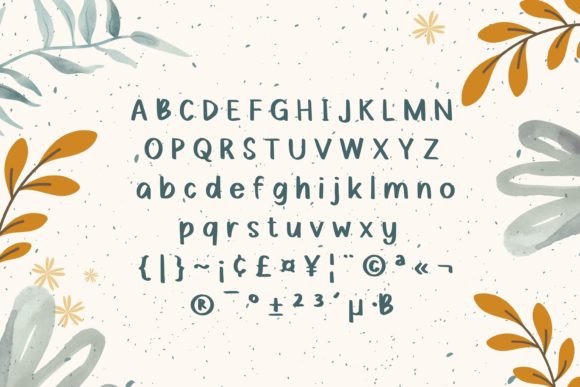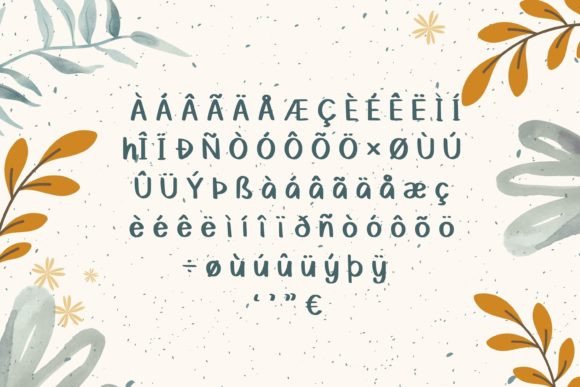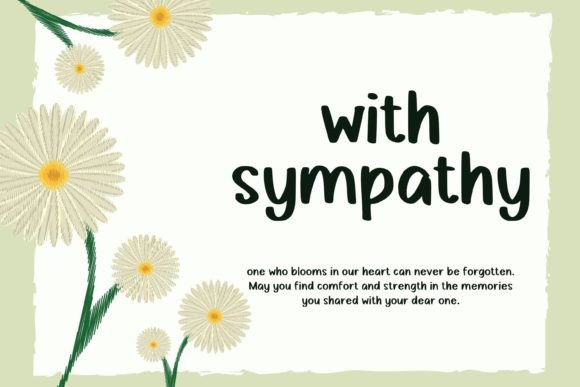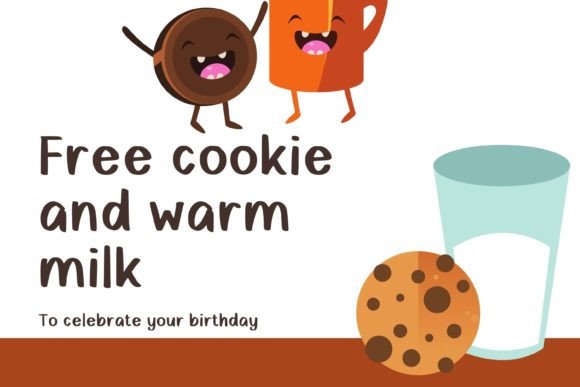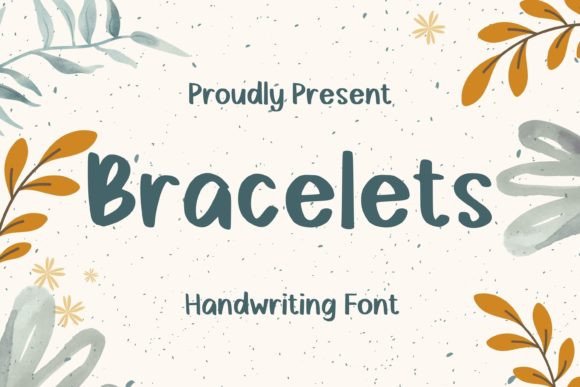
Bracelets Font: The Perfect Choice for Designers and Crafters
Bracelets Font is a smooth and friendly display font that has gained popularity among designers and crafters due to its casual and joyful style. This font is perfect for those who want to add a touch of warmth and approachability to their designs. In this article, we’ll explore the features and benefits of Bracelets Font, and why it’s an excellent choice for various design projects.
What Makes Bracelets Font Special?
Bracelets Font is a unique display font that boasts a down-to-earth, readable, and incredibly versatile style. Its smooth and friendly appearance makes it perfect for designs that require a personal touch. The font’s casual and joyful style is ideal for creating engaging and approachable designs that resonate with audiences.
Key Features of Bracelets Font
- Smooth and Friendly Appearance: Bracelets Font has a smooth and friendly appearance that makes it perfect for designs that require a personal touch.
- Casual and Joyful Style: The font’s casual and joyful style makes it ideal for creating engaging and approachable designs.
- Down-to-Earth and Readable: Bracelets Font is designed to be highly readable, making it perfect for body text and headlines.
- Incredibly Versatile: The font’s versatility makes it suitable for various design projects, from branding and advertising to packaging and crafting.
Benefits of Using Bracelets Font
Bracelets Font offers several benefits to designers and crafters, including:
- Easy to Read: The font’s high readability makes it perfect for designs that require a clear and concise message.
- Unique and Creative: Bracelets Font’s casual and joyful style makes it stand out from other fonts, adding a touch of creativity to designs.
- Time-Saving: The font’s versatility saves designers and crafters time, as it can be used for various design projects without the need for multiple fonts.
Design Ideas Using Bracelets Font
Bracelets Font is an excellent choice for various design projects, including:
- Branding and Logo Design: Use Bracelets Font to create a unique and memorable brand identity.
- Advertising and Marketing: The font’s casual and joyful style makes it perfect for creating engaging and approachable ads.
- Packaging Design: Bracelets Font is ideal for packaging design, adding a touch of warmth and personality to product packaging.
- Crafting and DIY Projects: The font’s versatility makes it perfect for crafting and DIY projects, such as making jewelry, cards, and other handmade items.
Tips for Using Bracelets Font
To get the most out of Bracelets Font, follow these tips:
- Use it for Headlines and Body Text: Bracelets Font is suitable for both headlines and body text, making it a great choice for designs that require a clear and concise message.
- Experiment with Colors and Textures: The font’s versatility makes it perfect for experimenting with different colors and textures.
- Pair it with Other Fonts: Bracelets Font can be paired with other fonts to create a unique and creative design.
Bracelets Font is a smooth and friendly display font that offers a unique and creative way to add a personal touch to designs. Its casual and joyful style makes it perfect for creating engaging and approachable designs that resonate with audiences. With its versatility, readability, and ease of use, Bracelets Font is an excellent choice for designers and crafters looking to add a touch of warmth and personality to their designs.